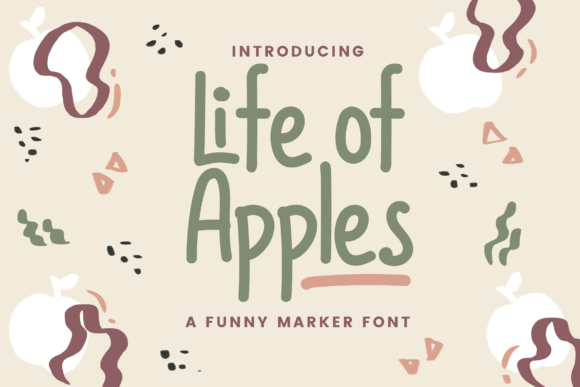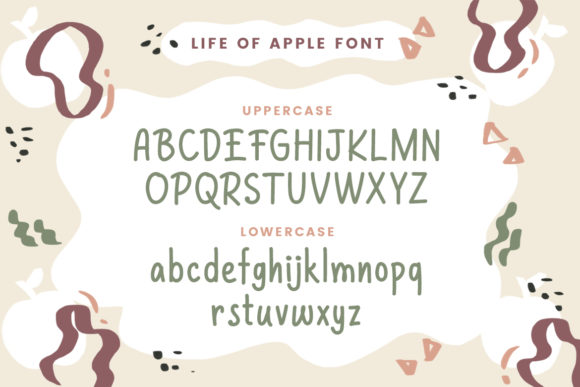
About Life of Apples Font
Introducing Life of Apples: The Fun Handwritten Font for Spectacular Designs
Experience the playful charm of Life of Apples, a fun handwritten font that adds a touch of realism to your creative ideas and brings your designs to life! Whether you’re working on logos, branding projects, invitations, quotes, posters, social media posts, or any other creative endeavor, Life of Apples is the perfect choice to infuse your designs with a vibrant and joyful energy.
Life of Apples’ fun and handwritten style brings a sense of playfulness and authenticity to your creations. Its lively strokes and cheerful letterforms make your text exude a delightful and engaging vibe.
As a font that boasts versatility and fun, Life of Apples becomes the go-to choice for projects that demand a touch of creativity and excitement. Its handwritten charm ensures that your work resonates with a personal and genuine look.
Embrace the vibrancy of Life of Apples as you embark on your creative journey. Let it be the font that enhances your ideas, making them even more realistic and captivating in every endeavor.
As you explore the possibilities of Life of Apples, you’ll find it to be a font that enhances your designs with ease. Its playful style and cheerful energy transform your work, ensuring that your logos, branding, invitations, quotes, and more leave a lasting impression.
So, let Life of Apples be the font that adds a touch of fun and vibrancy to your designs. Embrace its handwritten charm and watch as your creations become truly spectacular and engaging. With Life of Apples as your font of choice, your designs will resonate with a sense of creativity and joy, captivating your audience and leaving a lasting impression. Embrace the fun of Life of Apples and create projects that are truly vibrant and unforgettable!